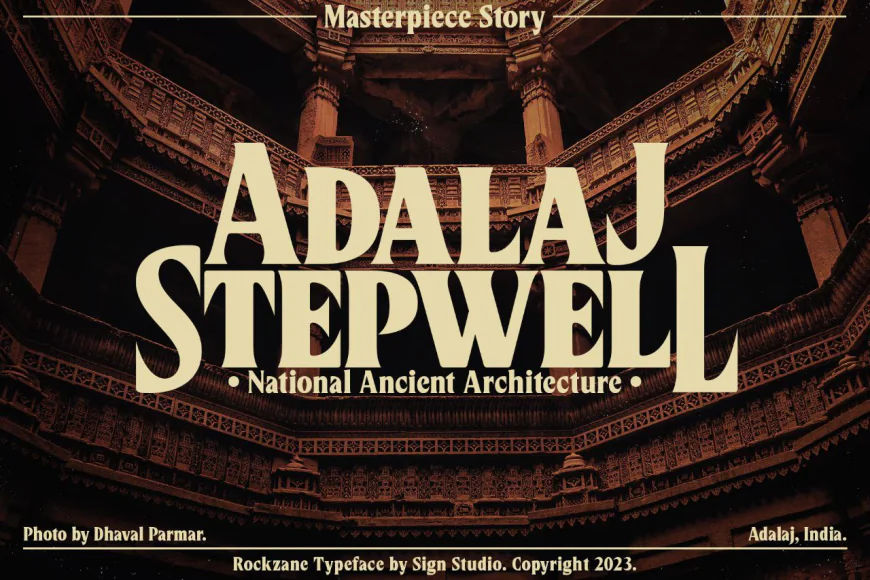
With its modern, edgy, and slightly rugged appearance, this font is perfect for logos, posters, headlines, branding, apparel, and creative typography projects.
Rockzane is a bold and stylish display font designed to make your text stand out! With its modern, edgy, and slightly rugged appearance, this font is perfect for logos, posters, headlines, branding, apparel, and creative typography projects.